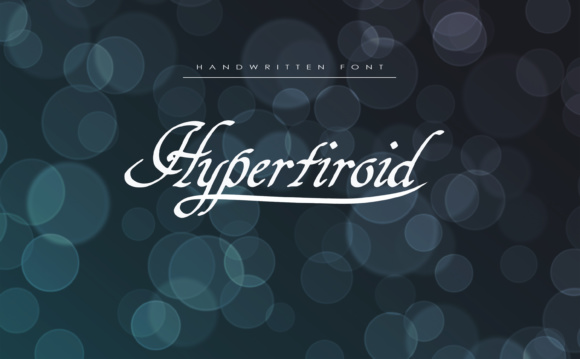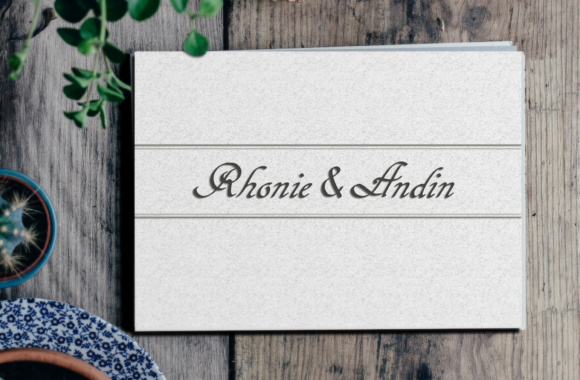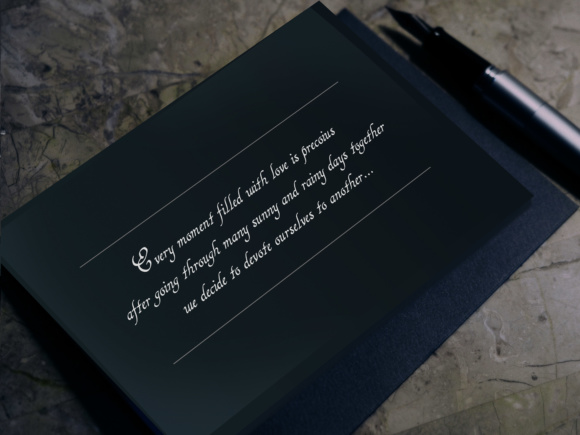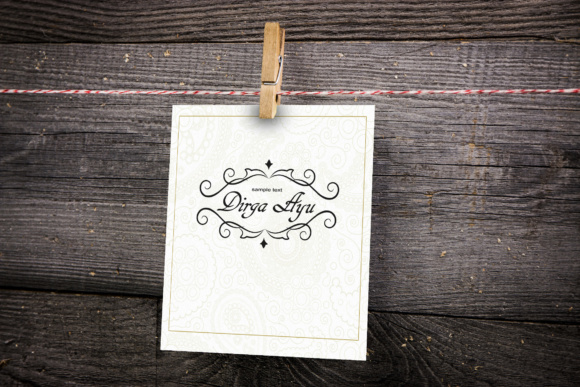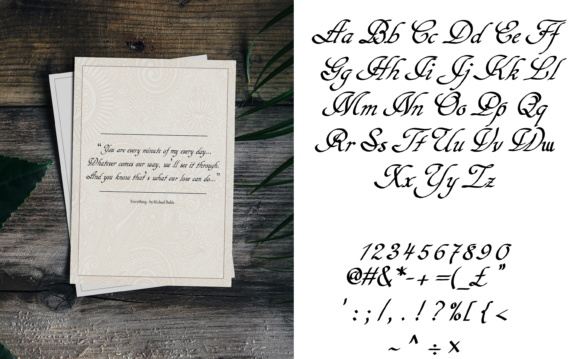
Hypertiroid Font
About Hypertiroid Font
Hypertiroid is a handwritten font, drawn with a stylysh pen on a smartphone and processed and optimized on the PC.